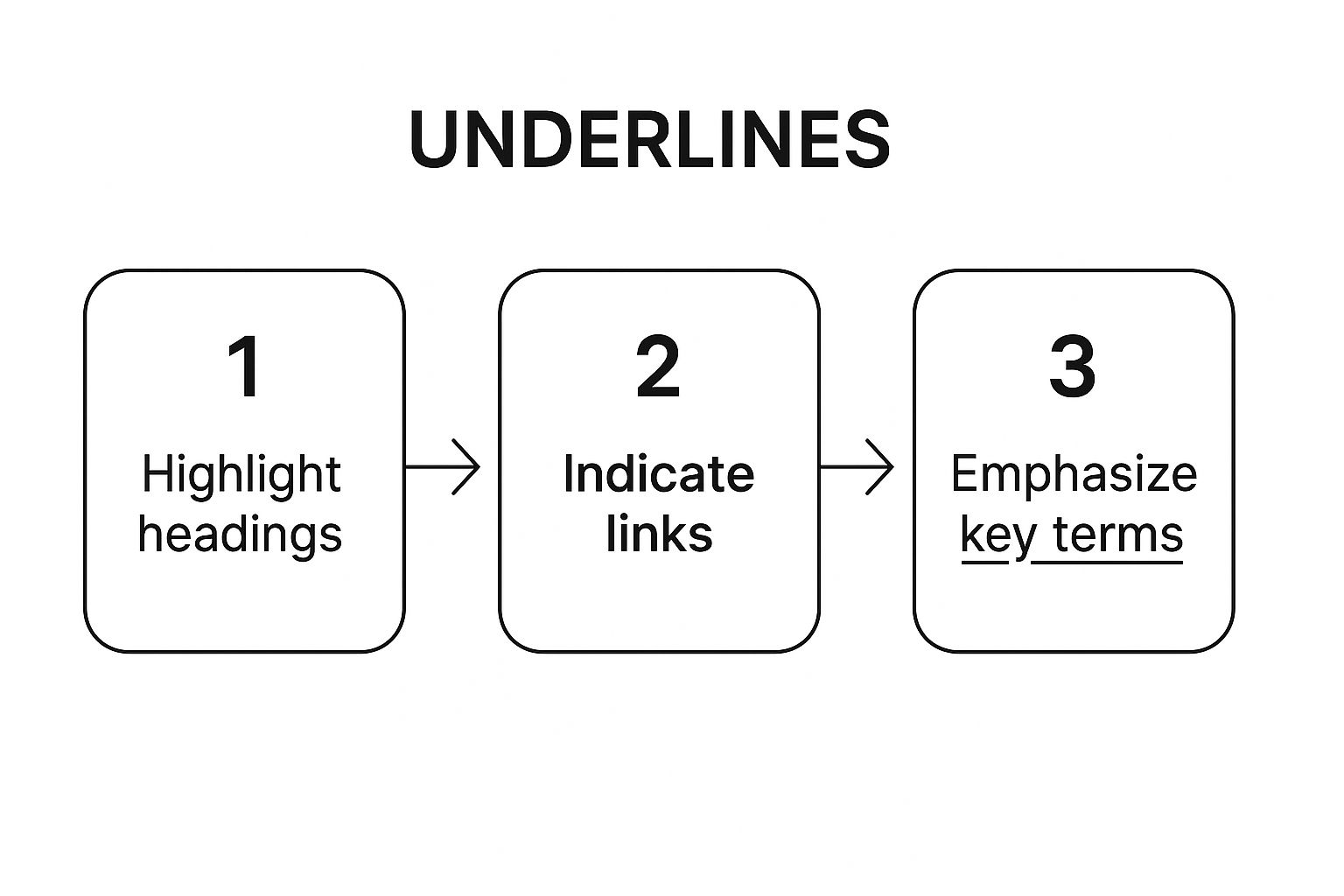
The humble text underline is one of those design tools we all use but rarely think about. It’s functional, sure—it gets the job done when you need to add a bit of emphasis. But what if it could be more than just a boring straight line?
By treating it as a design element, custom fonts with underline can add a genuinely unique and memorable touch to your work. This is where an AI font generator really shines, letting you move beyond the default and create something with real personality.
Why Custom Underlined Fonts Matter
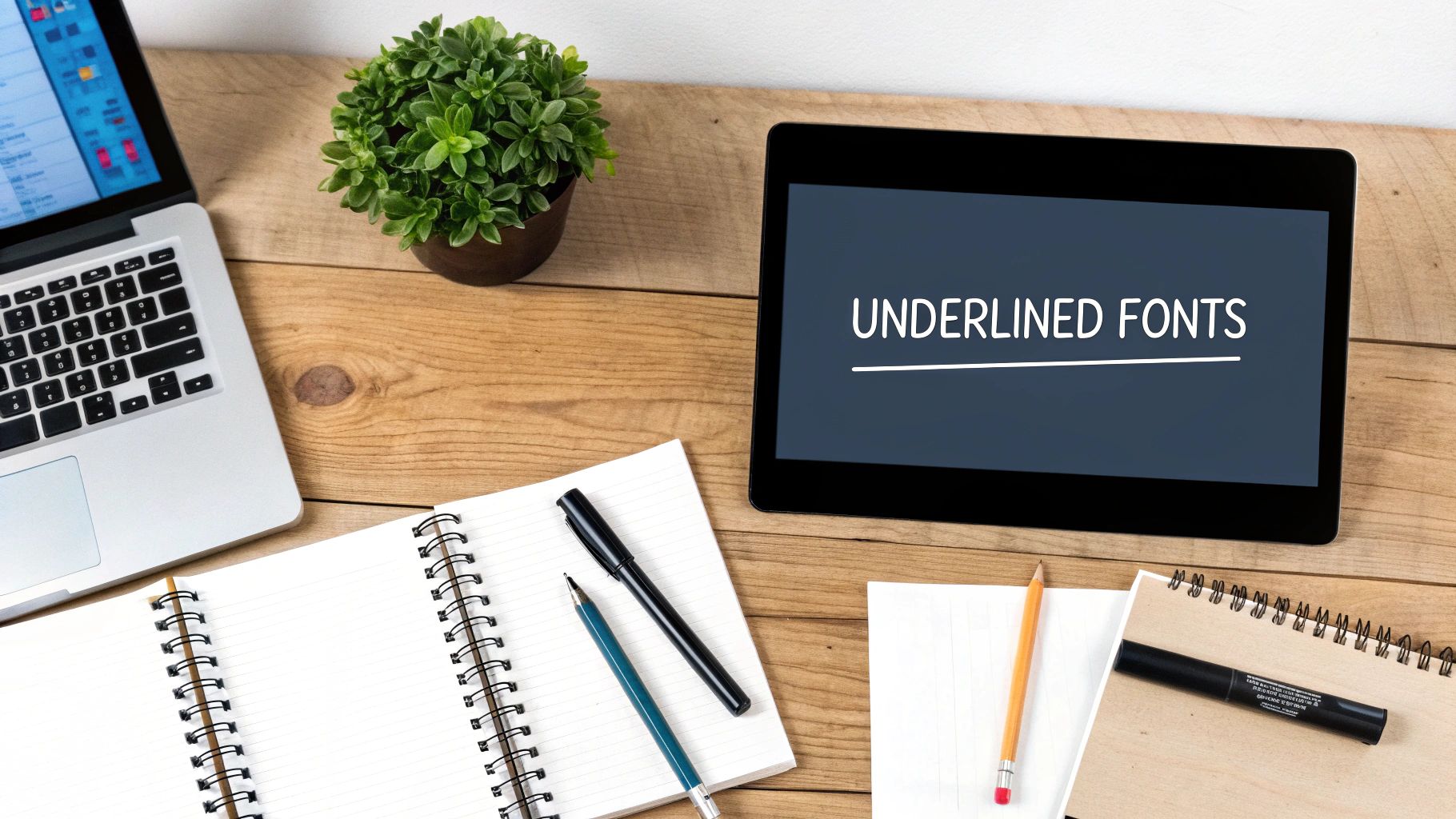
The simple underline has a surprisingly practical history. Back in the days of typewriters in the 19th and 20th centuries, especially here in the UK, there were no bold or italic options. The underline was the only way to make a word stand out in a document. It was pure utility.
But today, its role has completely evolved. A thoughtfully designed underline is a subtle but seriously effective branding tool. Imagine a logo where the underline is a delicate, wavy line that hints at a brand's playful side. Or a website where headings have a bold, architectural underline that feels strong and stable. It’s all about a deliberate choice.
Moving Beyond Basic Emphasis
Thinking of underlines as just a way to highlight text is a huge missed opportunity. A custom underline can do so much more. It can:
- Strengthen Brand Identity: A unique underline style can become just as recognisable as your logo or colour palette. It’s another piece of your visual language.
- Improve User Experience: Creative underlines aren't just for show. They can guide the reader's eye, make navigation clearer, and create a much more engaging visual flow on a webpage or in a document.
- Add a Professional Finish: Let’s be honest, custom fonts with stylised underlines just look better. They give marketing materials, presentations, and social media graphics a polished, bespoke feel.
A custom underline transforms a simple typographic element into a deliberate design choice. It signals attention to detail and elevates the entire composition from standard to standout.
This shift in perspective is what it’s all about. Instead of automatically hitting the underline button, you can start seeing it as a creative opportunity. An AI font generator is the perfect tool for this, letting you experiment with countless variations of fonts and underline styles until you find one that perfectly matches your brand’s voice.
What Exactly Is an AI Font Generator?
Welcome to a totally new way of thinking about typography. This is where your ideas can become one-of-a-kind typefaces in just a few seconds. An AI Font Generator is a clever bit of tech that uses machine learning to spin your simple text descriptions into fully realised font styles, complete with details like custom underlines.
Forget spending hours scrolling through endless font libraries. Now, you can just describe what you’re imagining.
Think of it like having a digital typographer on standby. You give it a creative prompt—say, "a friendly serif font with a thin, dotted underline"—and the AI gets to work, generating designs that bring your vision to life.
Why This Tool Changes Everything
The biggest win here is speed. A task that might take a designer days of painstaking work can now be knocked out in minutes. This means you can iterate and experiment almost endlessly, playing with countless variations of fonts with different underline styles until you land on the perfect one for your project.
- Instant Variations: Get dozens of unique font options from a single prompt. It’s perfect for exploring different creative avenues without the time commitment.
- Total Creative Freedom: Stop being limited by standard presets. You can now create genuinely bespoke typography that fits your project’s aesthetic like a glove.
The real magic of an AI font generator is its ability to turn abstract creative ideas into tangible, usable design assets. It's the ultimate bridge between your imagination and the final product.
This whole process smashes through creative blocks and opens up a world of new possibilities for branding, web design, and digital art. By understanding your prompts, an AI font generator can produce everything from subtle, classic underlines to bold, graphic styles that become a core feature of the font itself. It’s the ideal tool for the job.
Crafting Your First AI Underlined Font
Ready to bring your own underlined font to life? Getting started with an AI Font Generator is surprisingly straightforward. The whole process hinges on one simple thing: the text prompt. Think of your prompt as a creative brief you're giving the AI. It’s the key that unlocks its potential and steers it towards the exact style you’re picturing.
To keep things user-friendly, make sure your underline doesn't cut through any part of the letters (especially descenders like on a 'g' or 'y') and maintains strong colour contrast with the background. My advice? Save your most creative fonts with underline for things that aren't interactive, like headings or print materials. That way, you get all the style without any of the usability headaches.